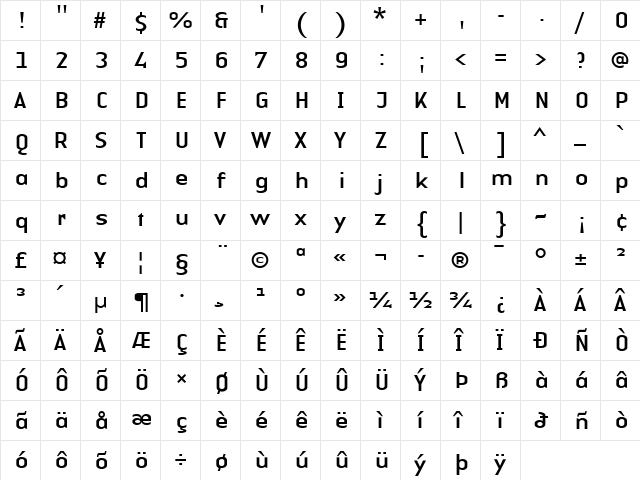
LTAuthenticSans Regular
| Foundry | Linotype Library GmbH or ist affiliated Linotype-Hell companies |
Design Context for LTAuthenticSans Typeface
LTAuthenticSans is a composed and adaptable typeface that performs quietly and consistently across a wide range of design contexts.